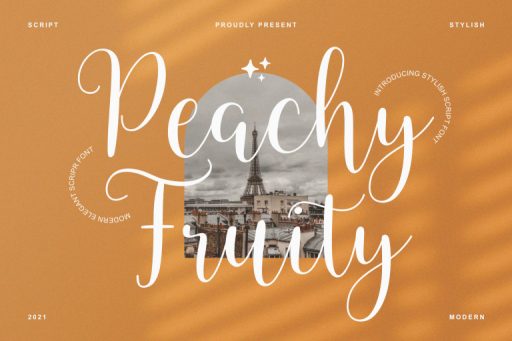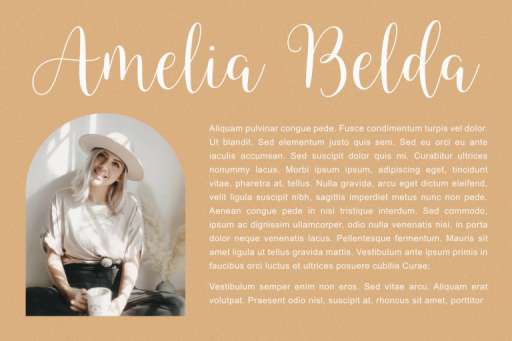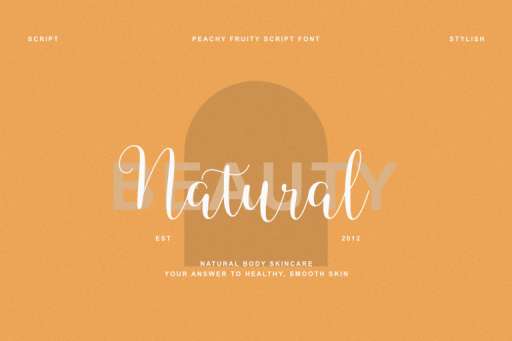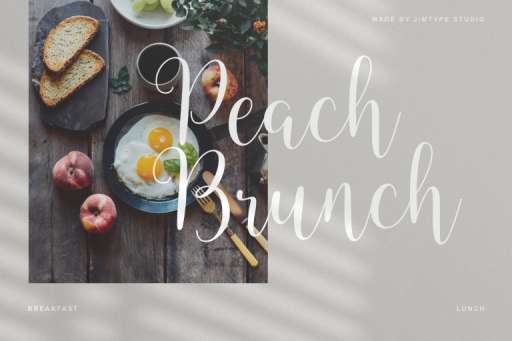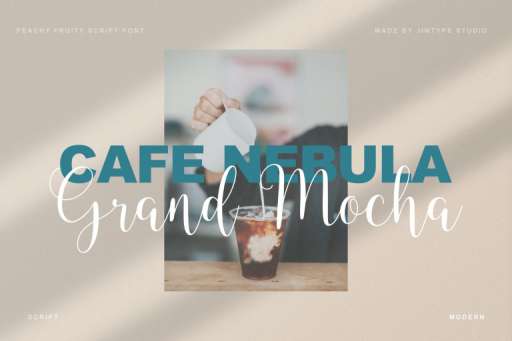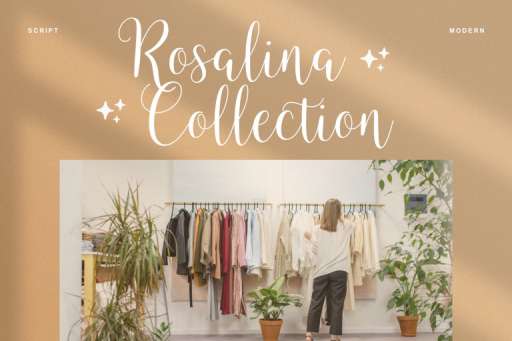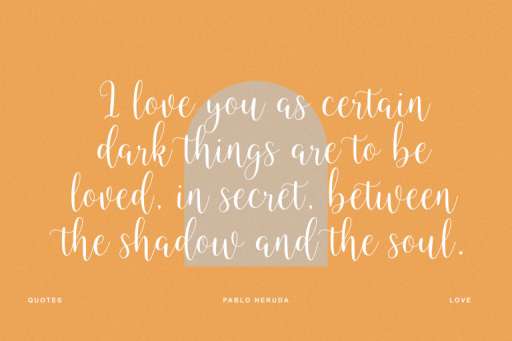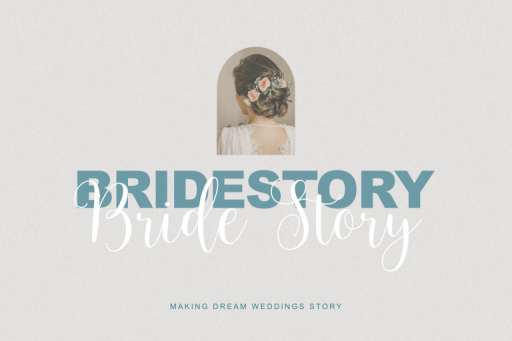
Peachy Fruity Font
Peachy Fruity – Business Script Font
Peachy Fruity is a modern script beautiful font. This font is easily used, it contains a standard character lowercase and uppercase letters, punctuation, numbers, and multilingual support. This font is perfect for branding, business, logo, watermark, quotes, web design, wedding, cards, shirt, and many projects.